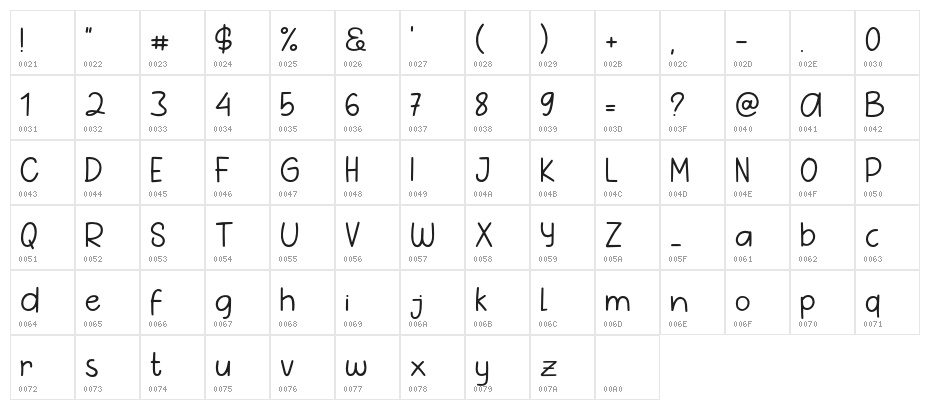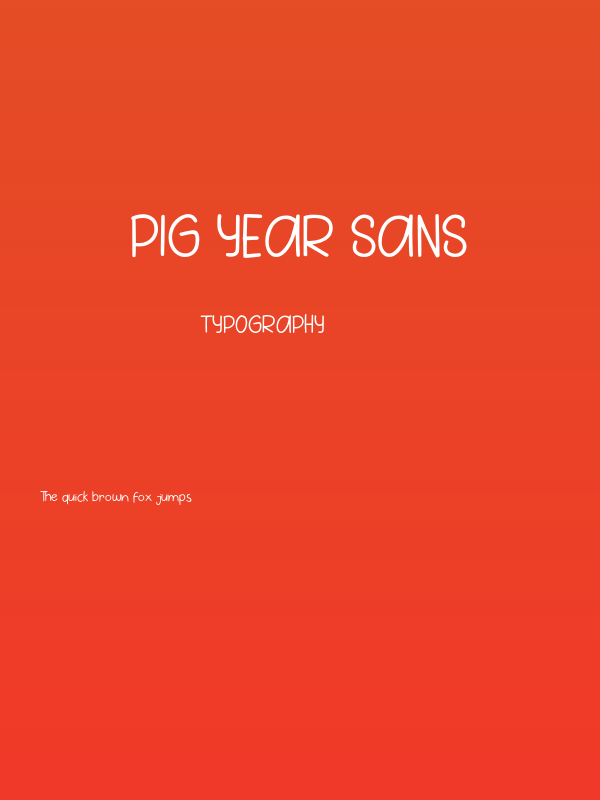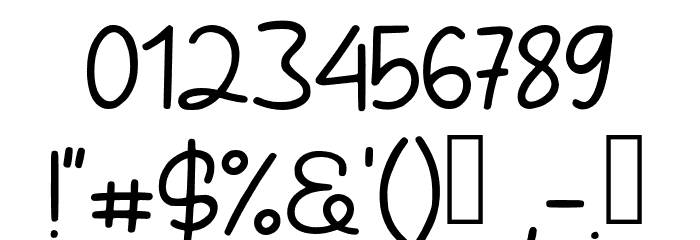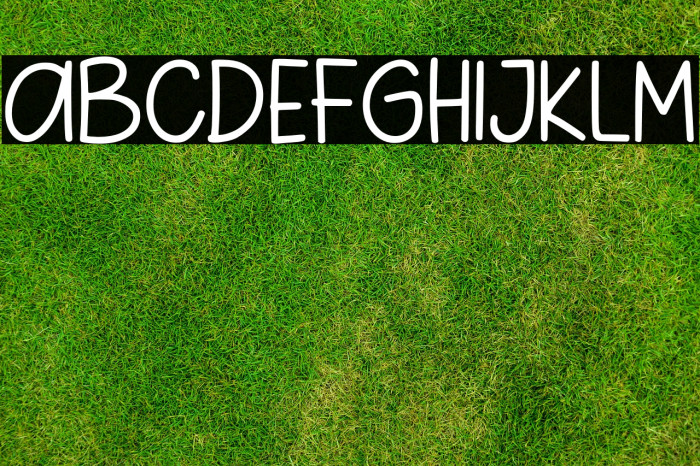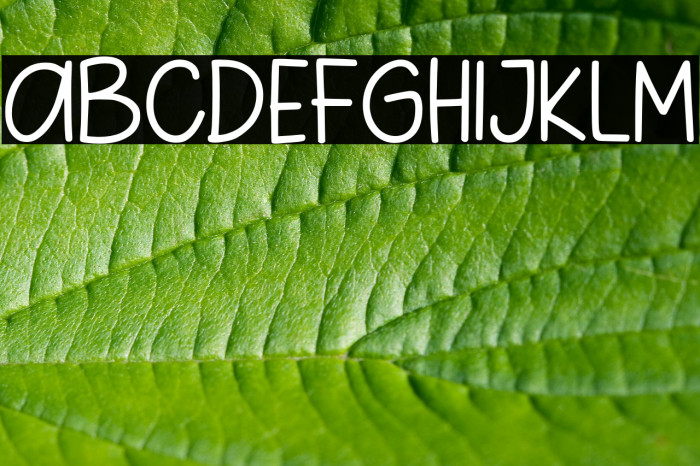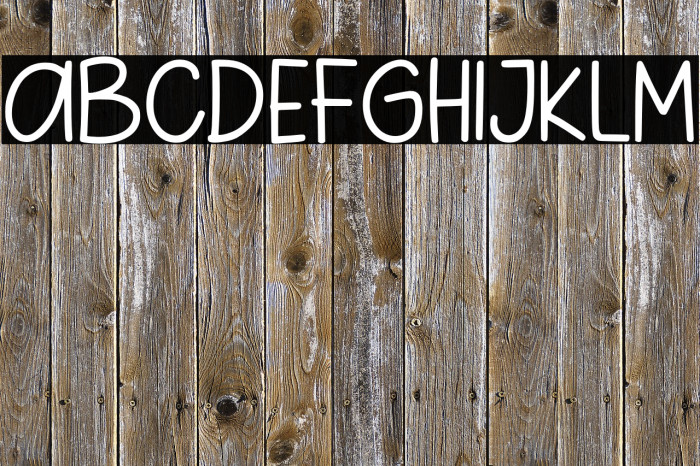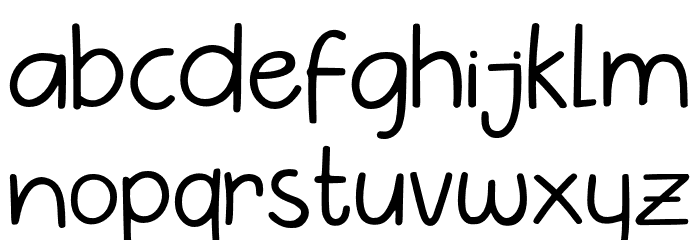
Pig Year Sans Font
Pig Year Sans Description
This playful and whimsical font features rounded, smooth edges with a hand-drawn aesthetic. The characters are slightly irregular, adding a casual and friendly feel. The uppercase letters are bold and prominent, while the lowercase letters maintain a consistent flow with a slightly smaller size. Numbers and special characters follow the same style, ensuring uniformity across all elements. The font's overall appearance is approachable and fun, making it suitable for creative and informal projects.
| Proposed Projects | Ideal for children's books, greeting cards, playful branding, and informal invitations. |